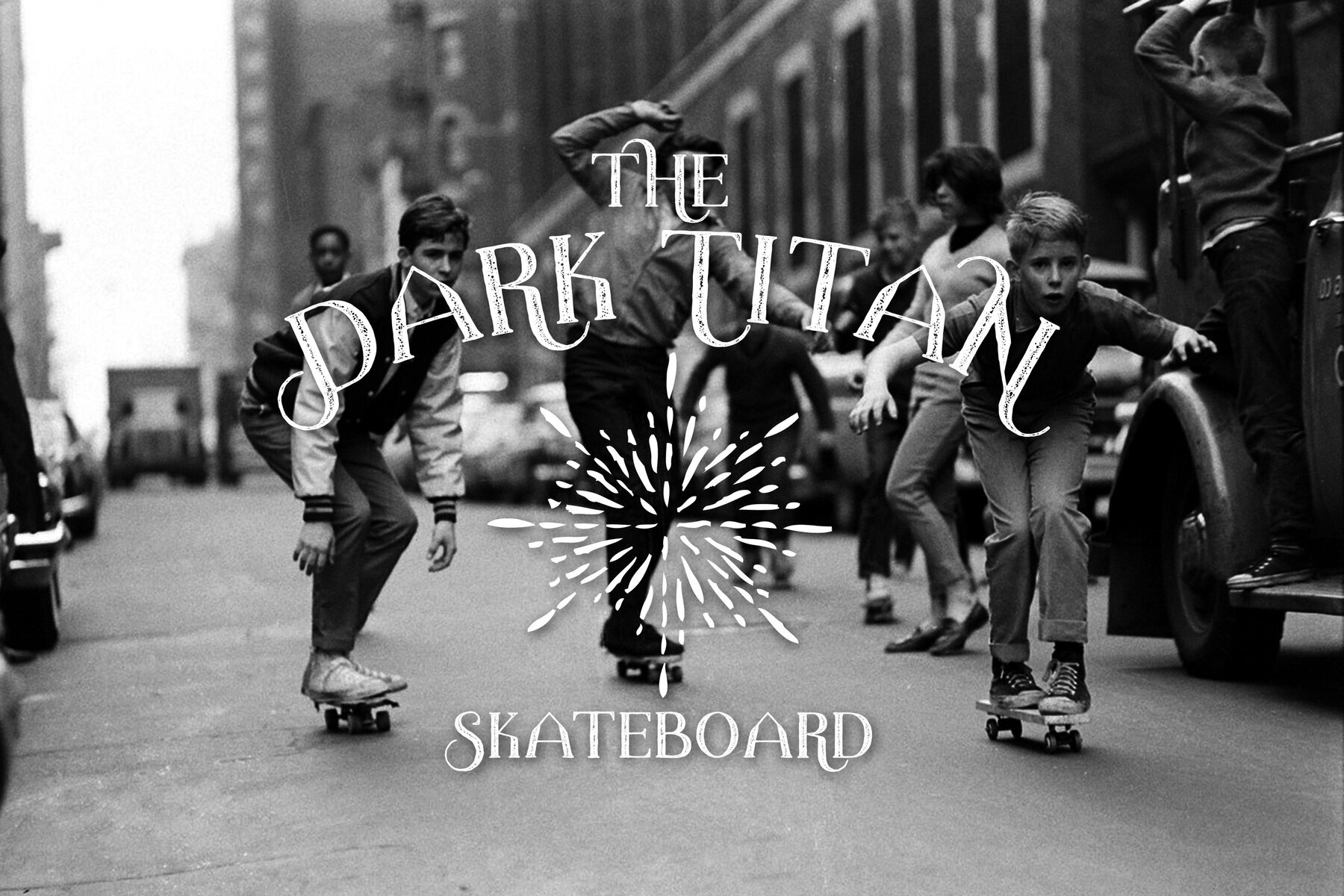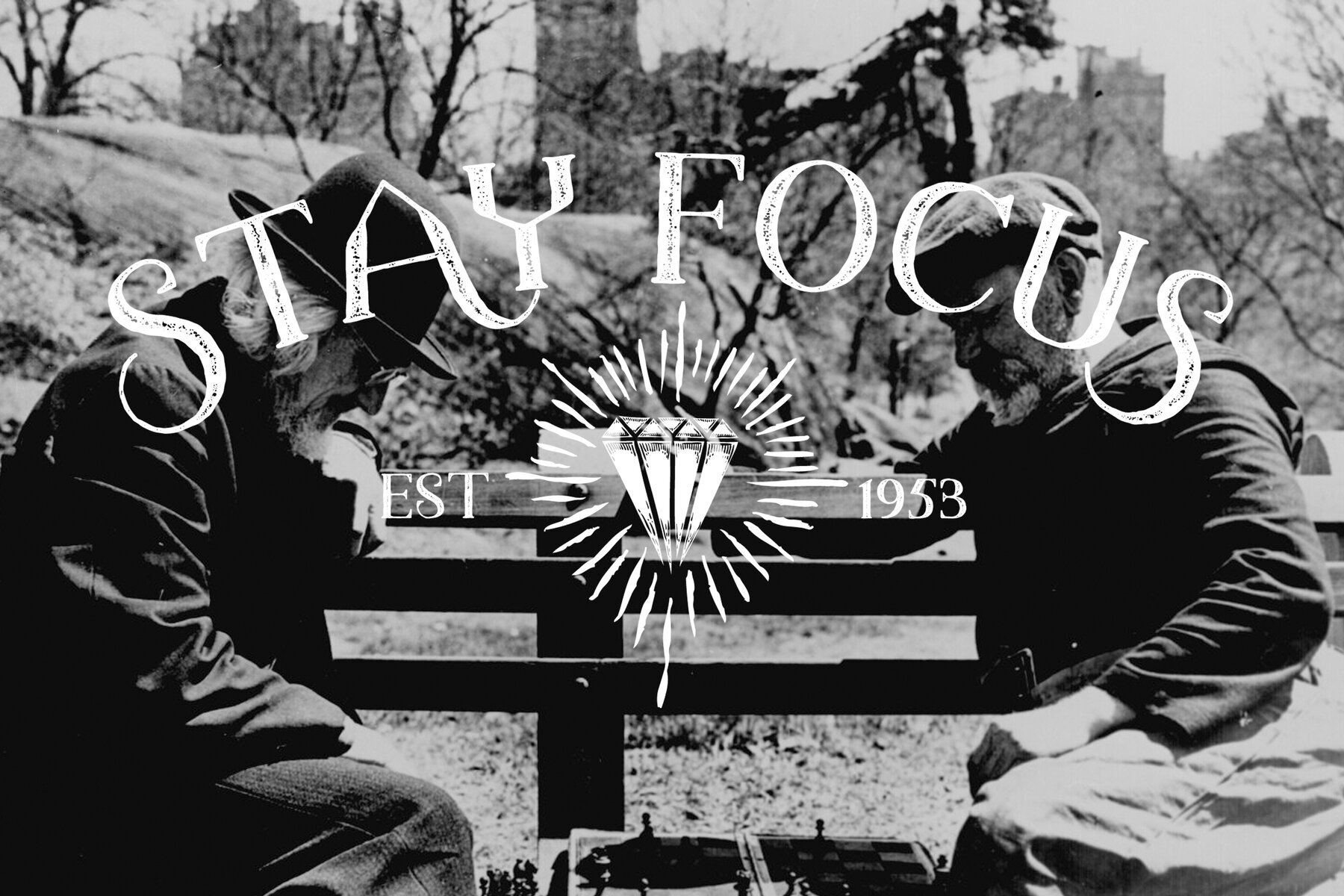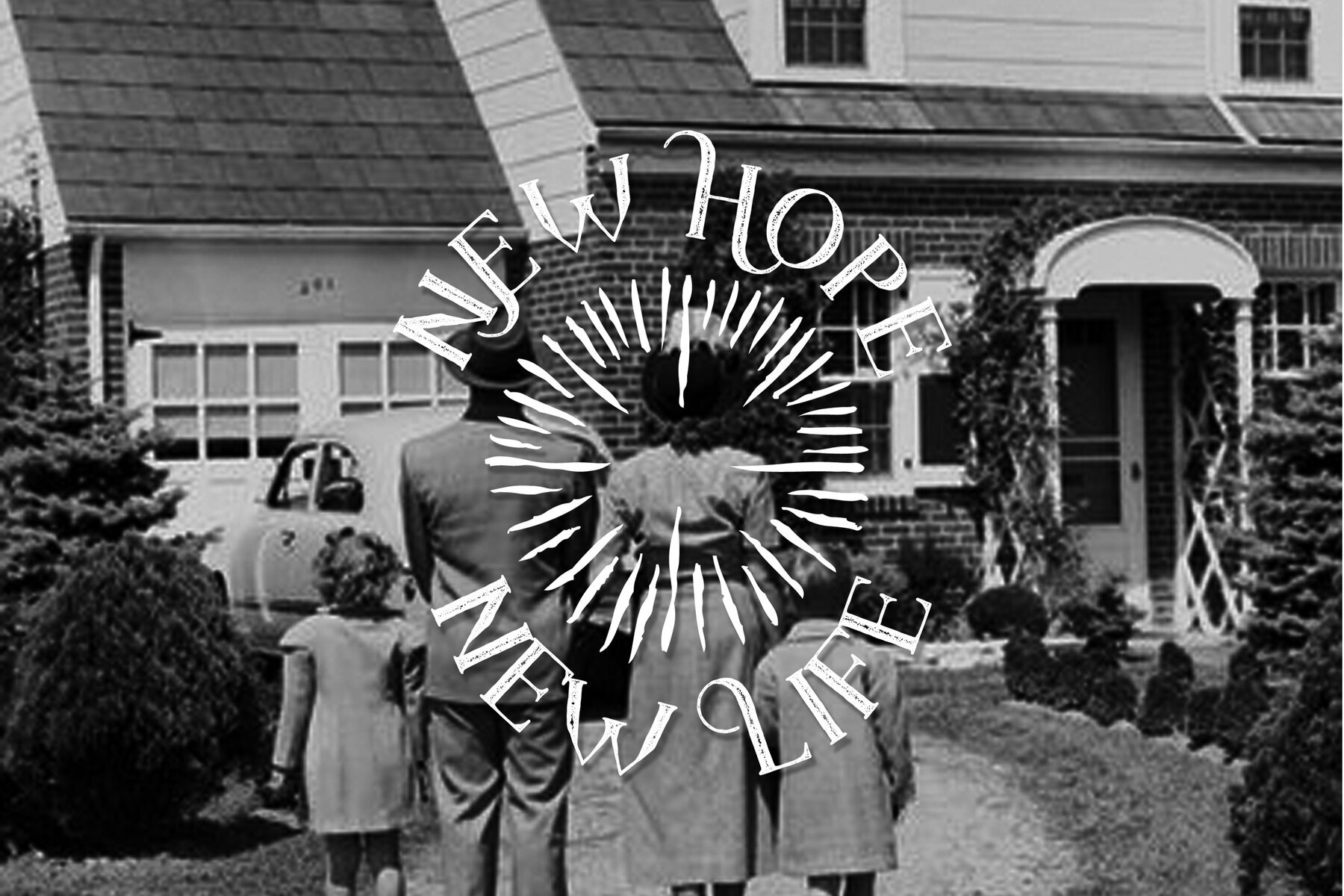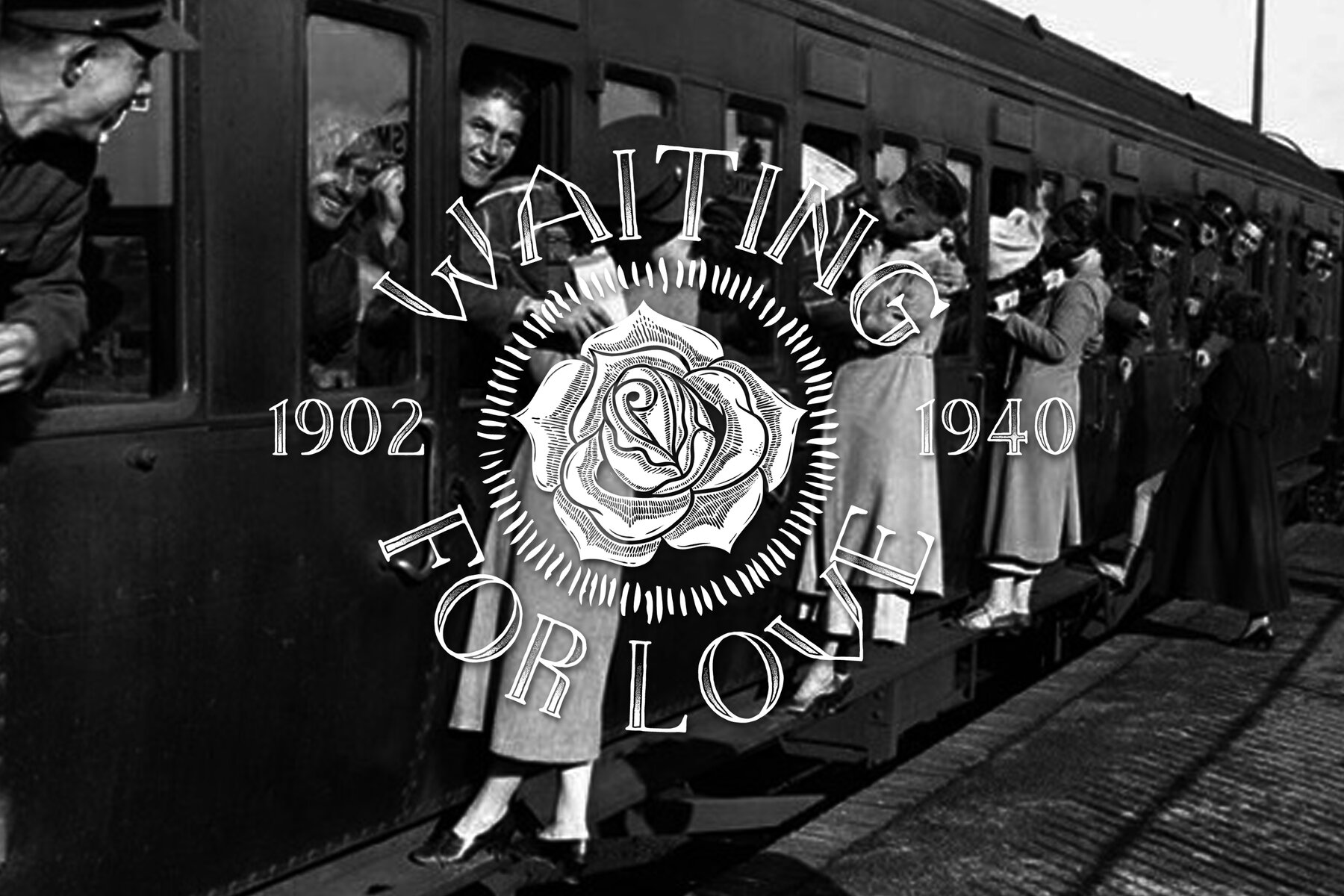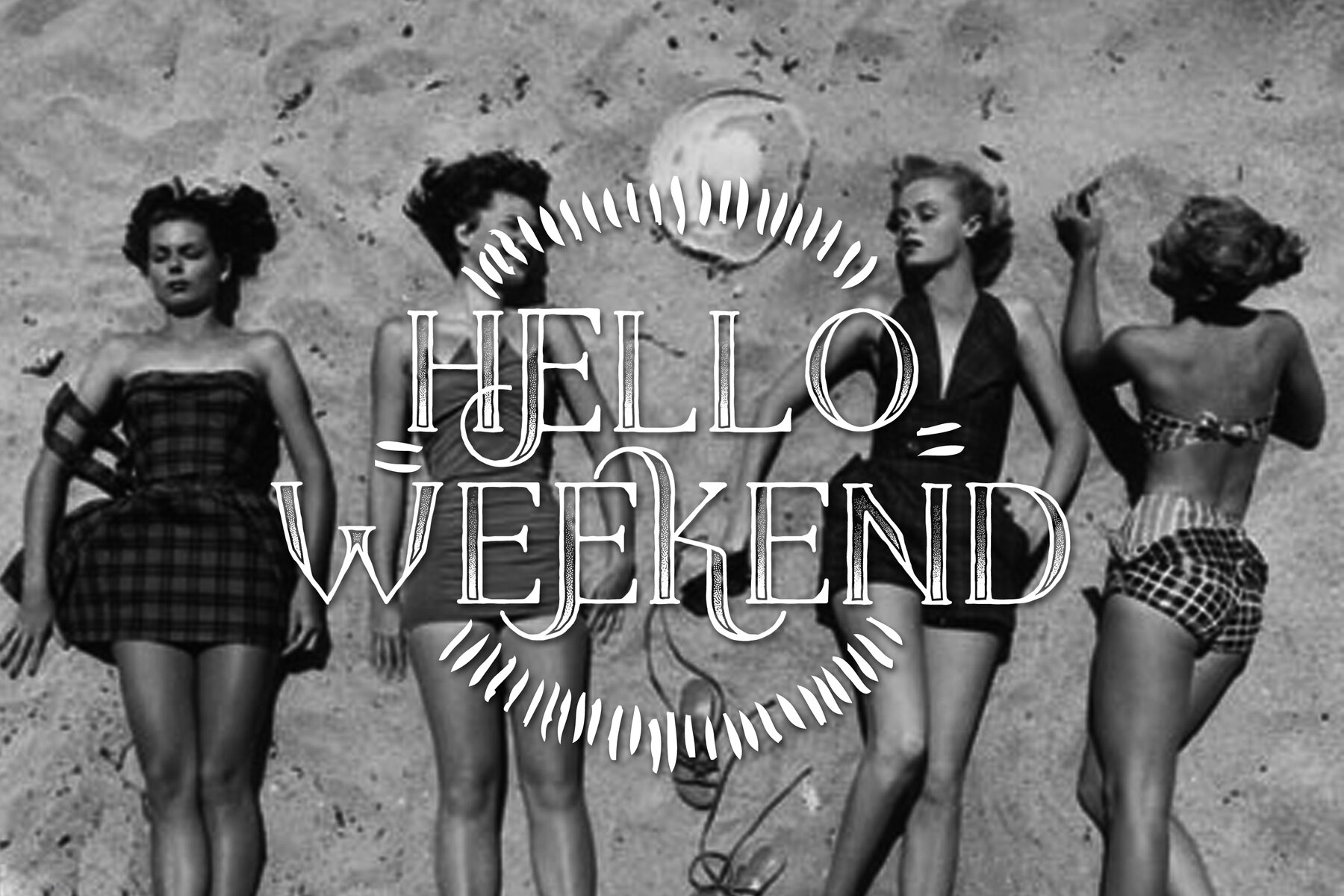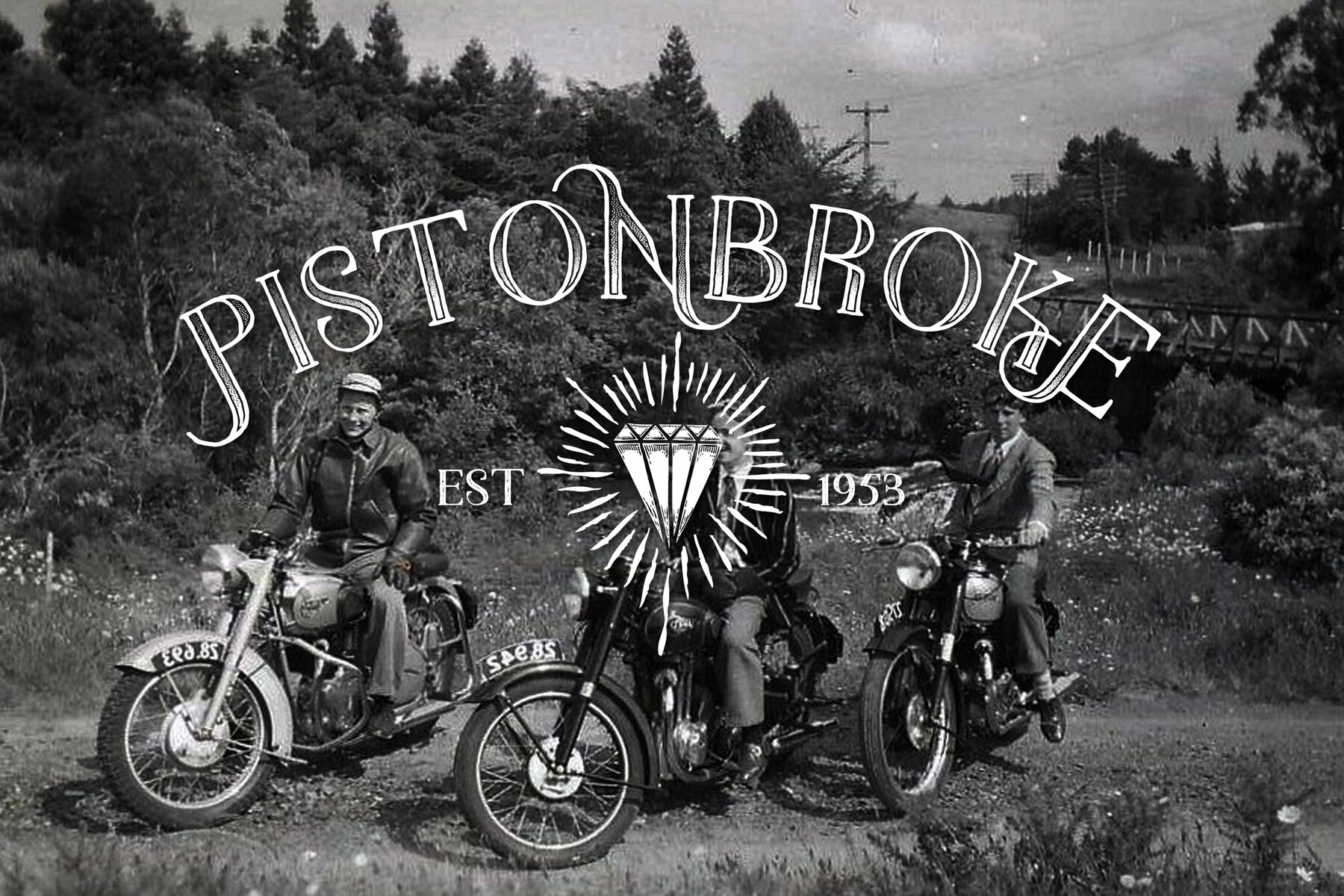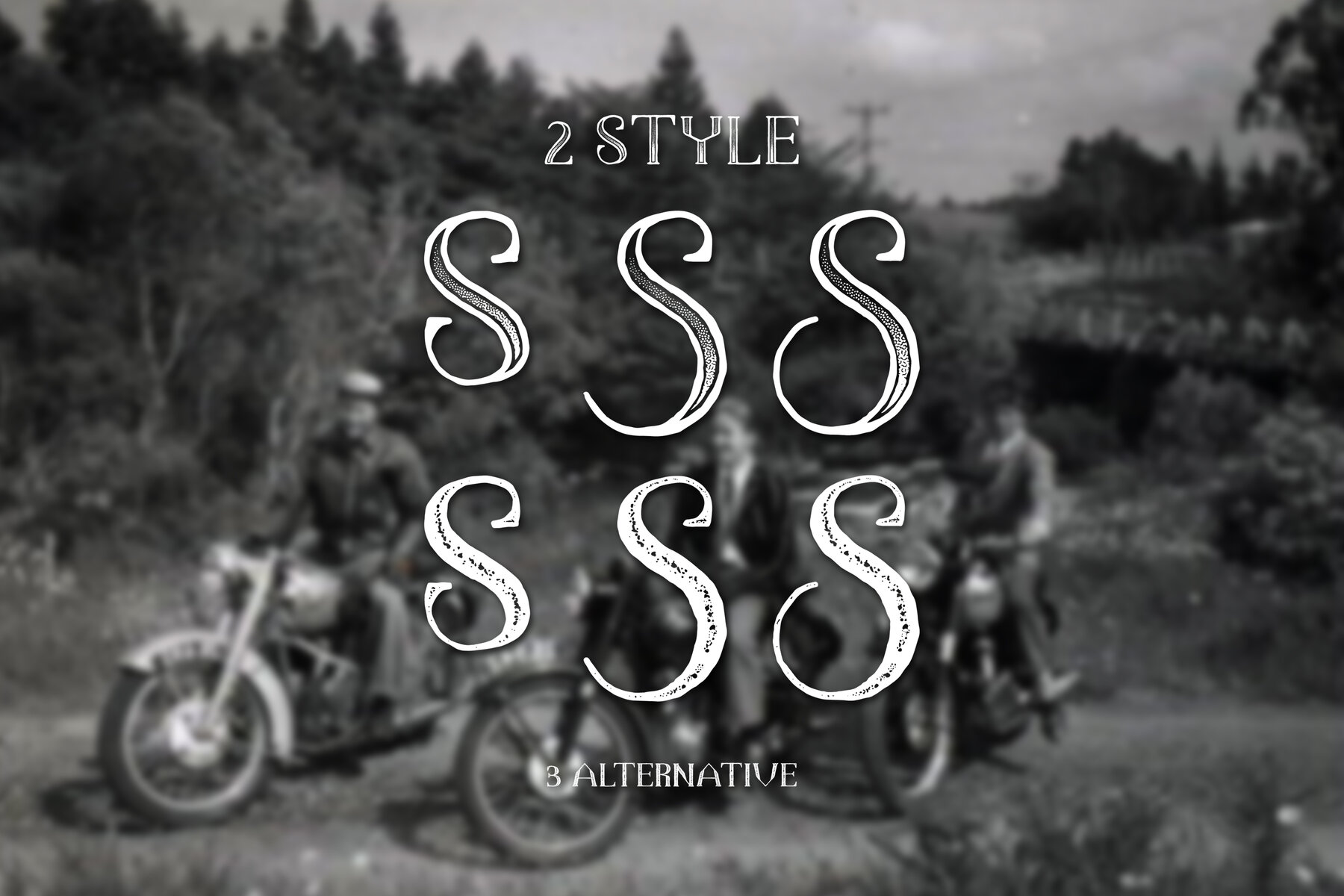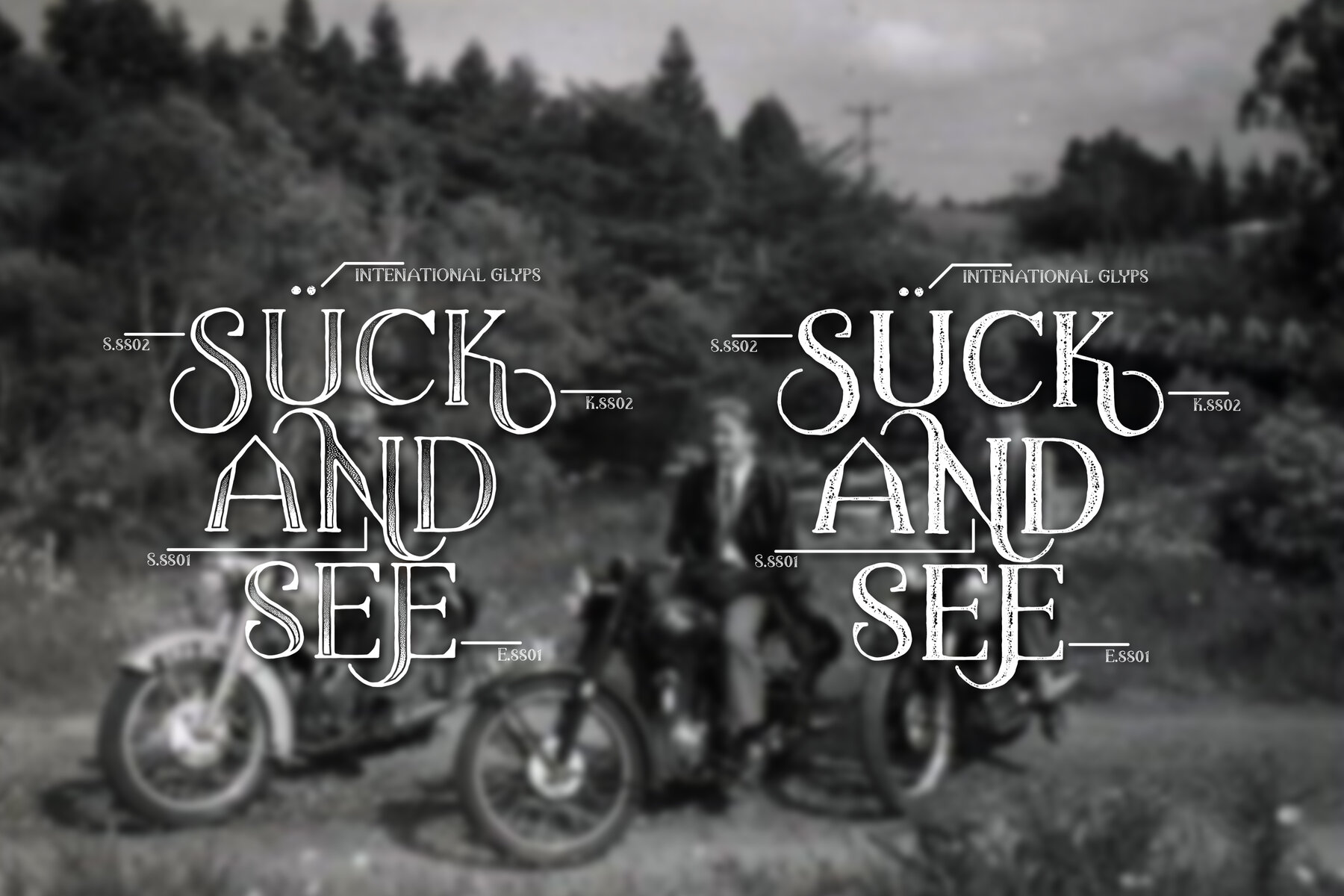
The Dark Titan: Vintage and Classic Handwriting Appeal
The Dark Titan is a handwriting font that artfully blends vintage charm with classic appeal. Its cool character lends itself perfectly to diverse design projects, ranging from posters and book covers to merchandise and fashion campaigns.
• Versatile Usability – Ideal for newsletters, branding, and advertising.
• Aesthetic Appeal – Enhances greeting cards and magazines.
• Creative Edge – Perfect for album and quote designs.